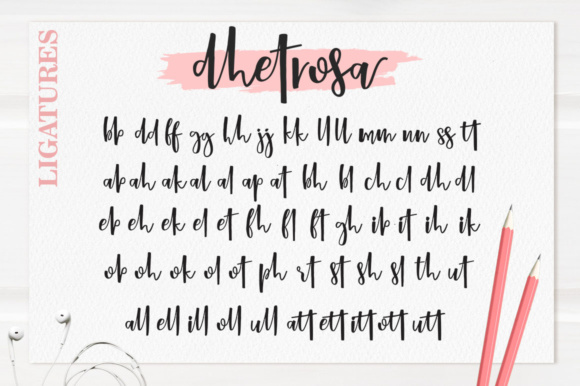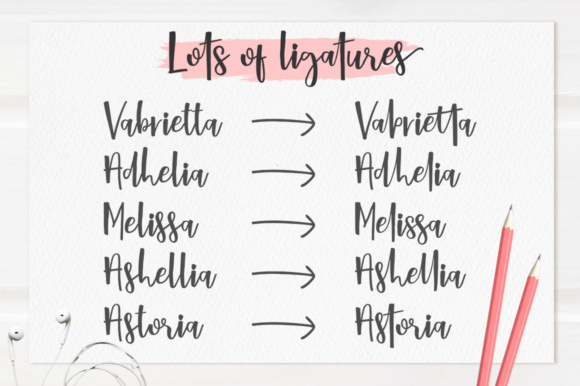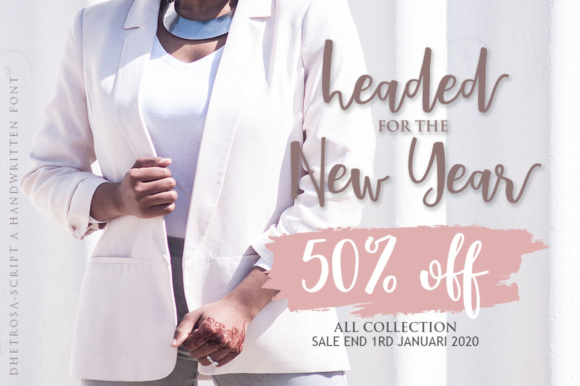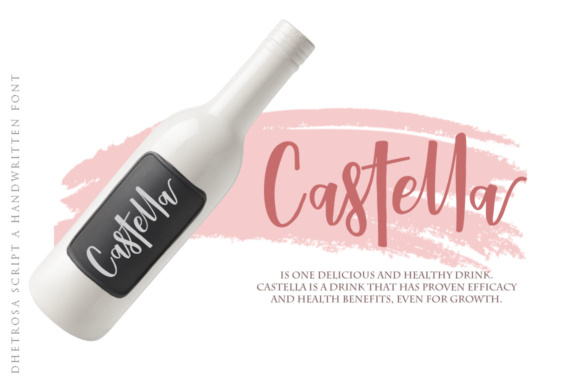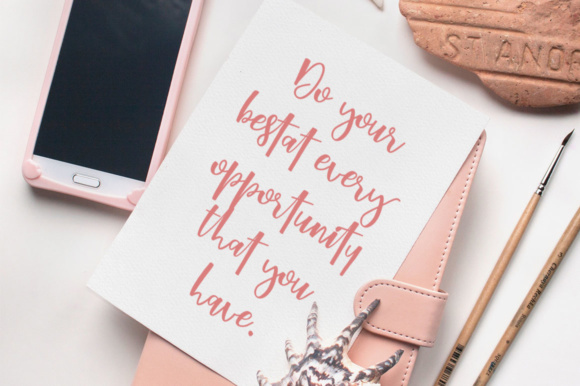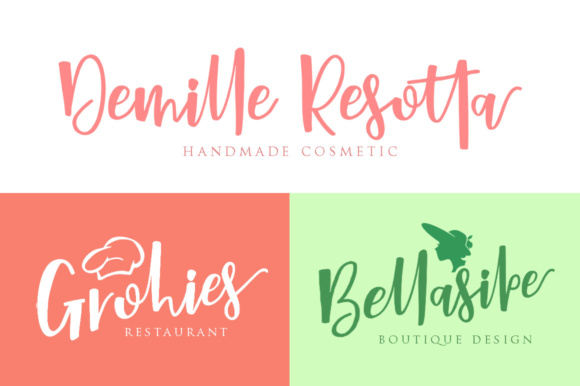
The Dhetrosa Script Font: A Hand-Made Gem for Creative Projects
I’ll never forget the design project that led me to discover the Dhetrosa Script Font. I was working on a branding project for a boutique craft shop, and I needed a font that would capture the essence of handmade, artisanal products. After hours of searching, I stumbled upon Dhetrosa, and it was love at first sight. The irregular, brush-and-inked style seemed to whisper “handmade” in my ear, and I knew I had found the perfect fit.
An Honest Review of Dhetrosa Script Font
- ✨ Unique, hand-made aesthetic that adds a touch of personality to any project
- ✅ Includes a wide range of ligatures to enhance the natural flow of writing
- ✅ Supports OpenType features, allowing for advanced typographic control
- ✨ Highly legible, despite its irregular style
- ⚠️ Some users may find the irregular style too informal for certain projects
- 🤔 Limited availability of stylistic alternates, which may limit creative options
The Designer Inspiration Behind Dhetrosa
While the true story behind Dhetrosa’s creation remains a mystery, it’s easy to imagine a designer who fell in love with the art of hand-lettering. Perhaps they spent hours pouring over vintage manuscripts, marveling at the unique character of handwritten text. With Dhetrosa, they aimed to capture the essence of hand-made writing, infusing it with a sense of personality and whimsy.
| What makes Dhetrosa Script Font unique? | Dhetrosa’s irregular, brush-and-inked style and extensive ligature set make it a standout among script fonts. |
| Is Dhetrosa suitable for body text? | While Dhetrosa is highly legible, its irregular style may make it less suitable for long blocks of body text. It’s best used for titles, headings, or short paragraphs. |